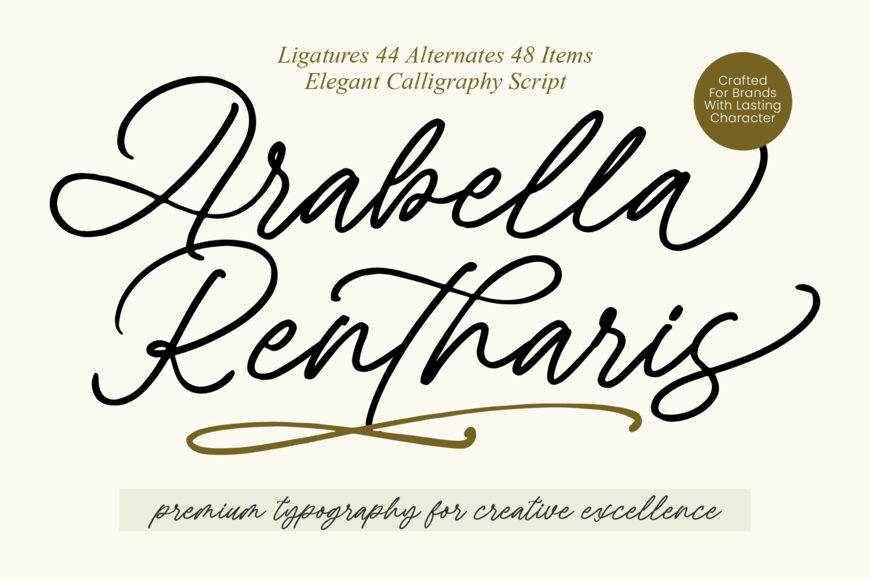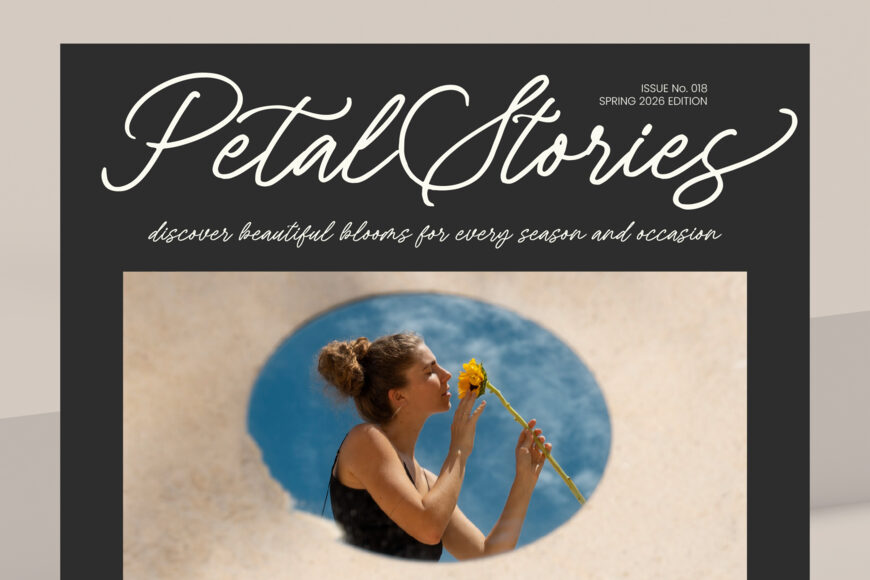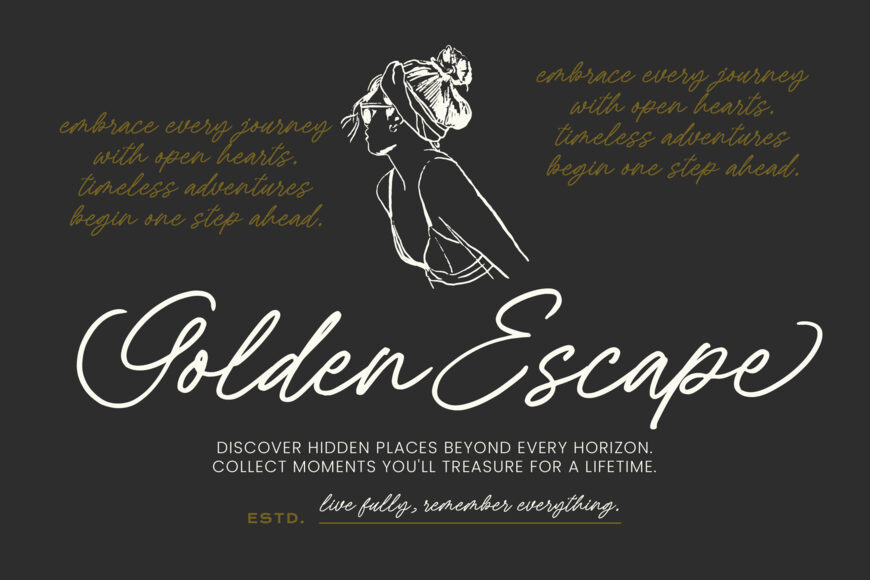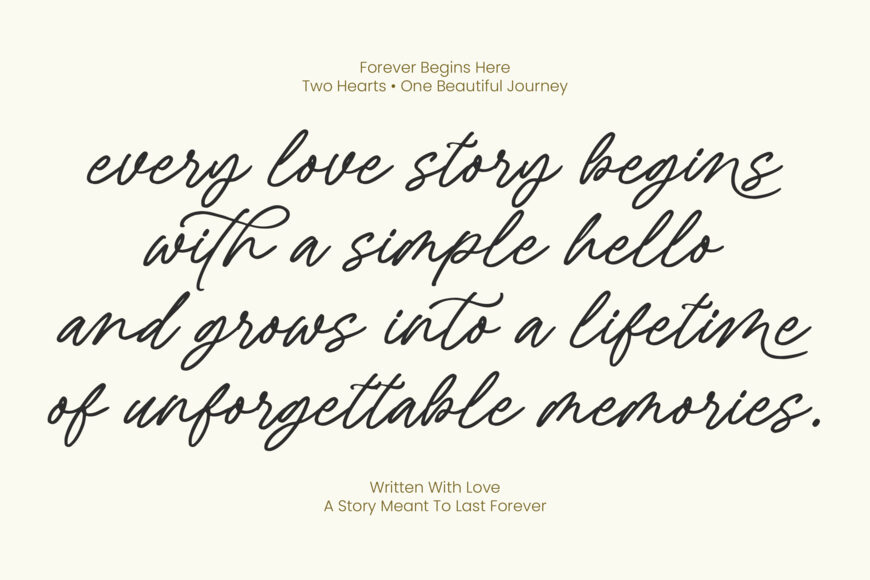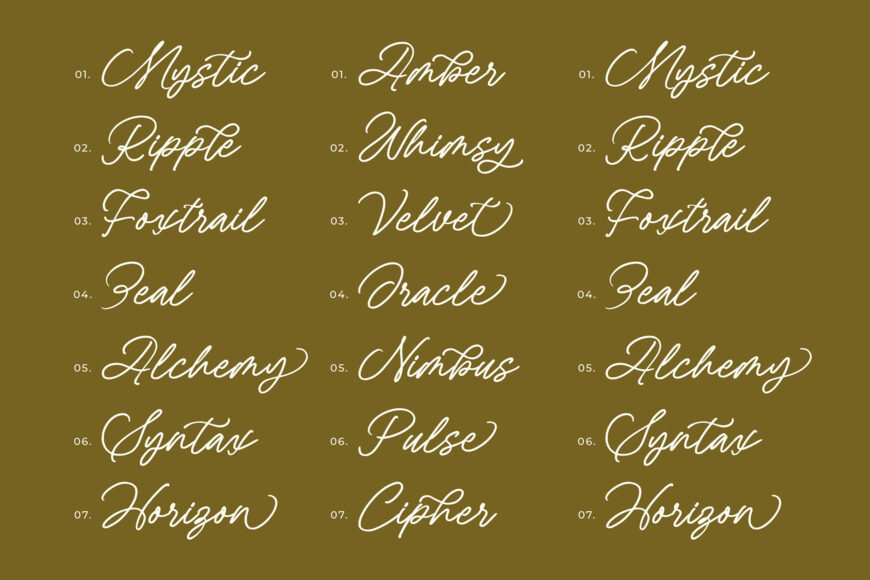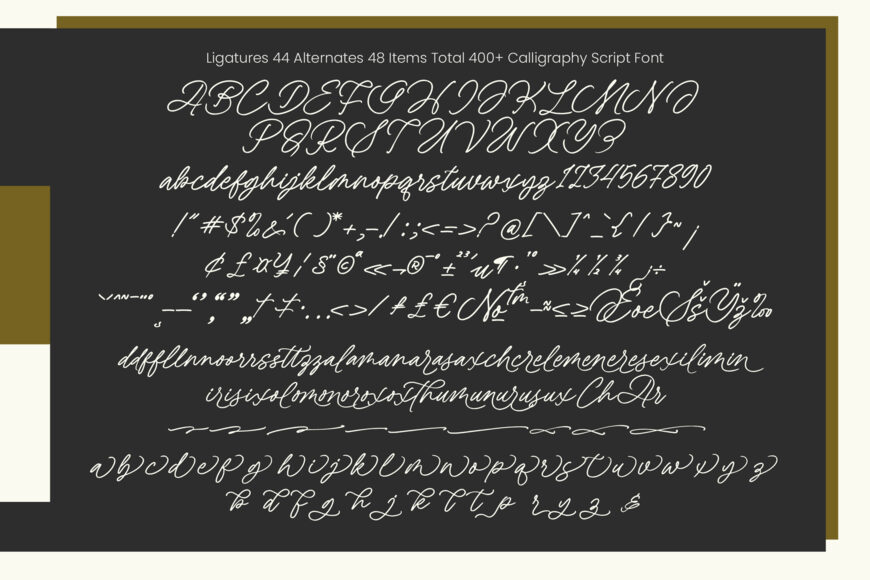
Add sophistication to your projects with Arabella Rentharis, a premium calligraphy script. Its handcrafted look balances fluidity with structured elegance, creating a luxurious feel.
With extensive multilingual support and numerous customization options, this versatile font is ideal for high-end branding, luxury packaging, and editorial design, as well as wedding invitations and bespoke stationery, bridging traditional and modern design.